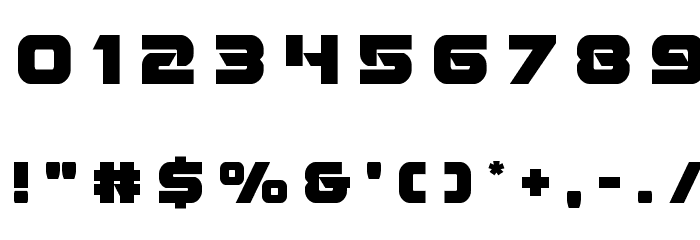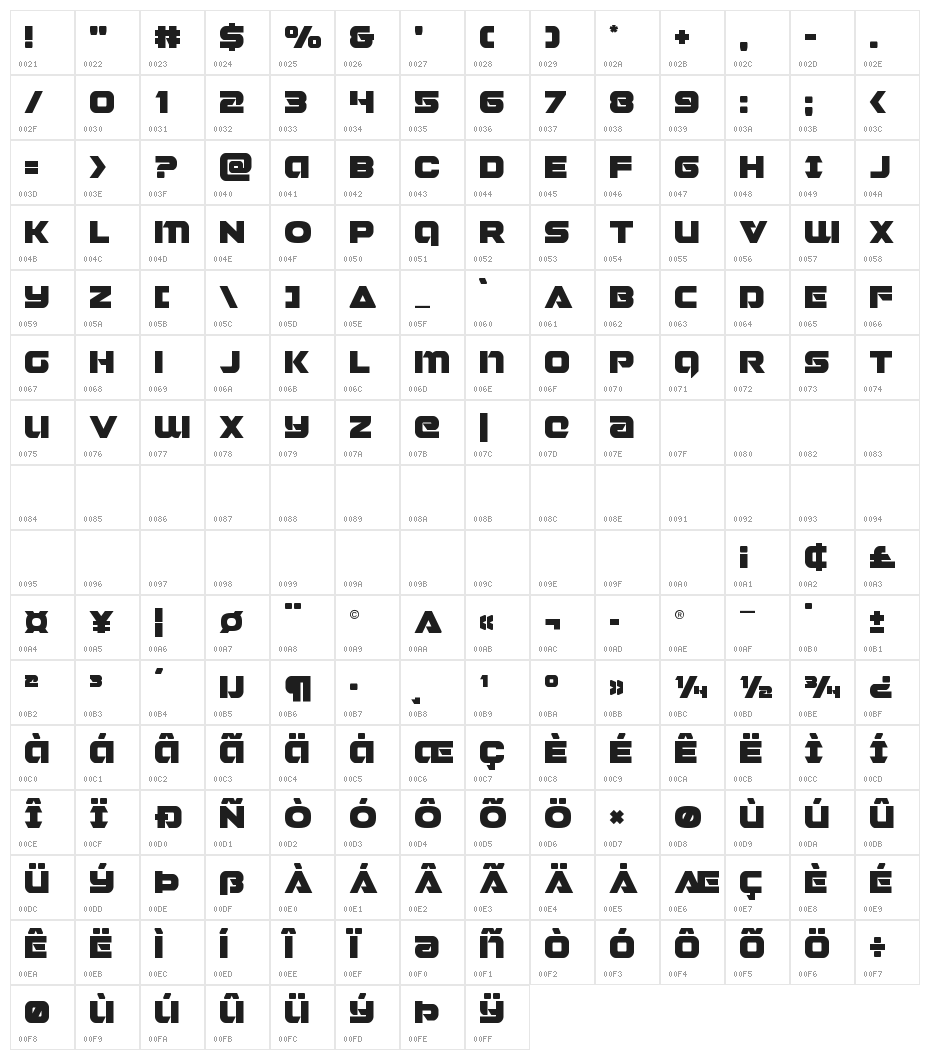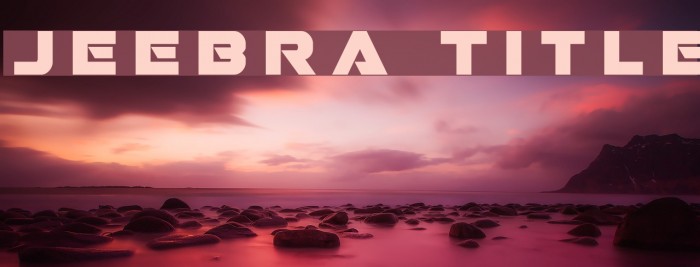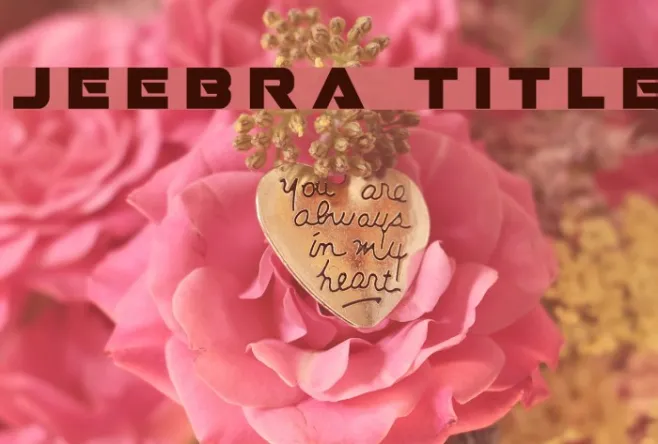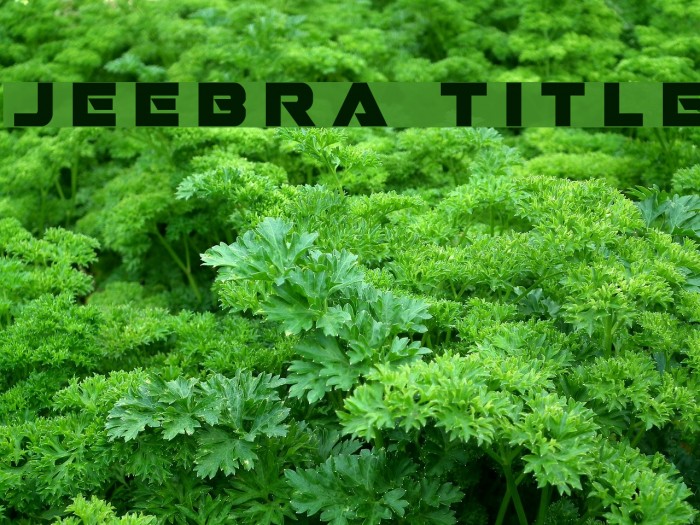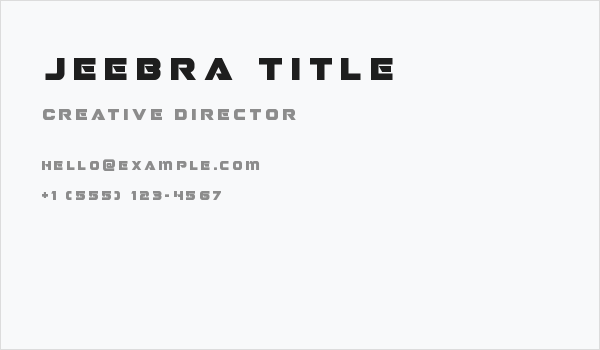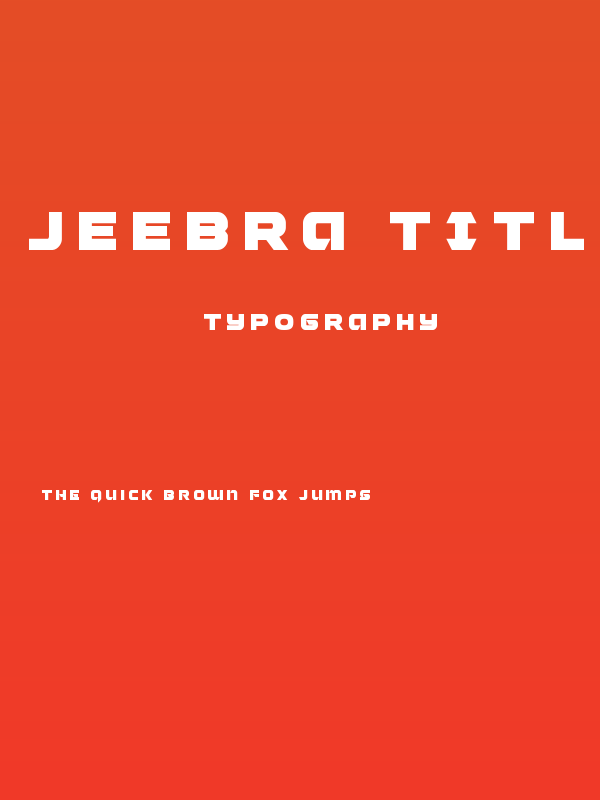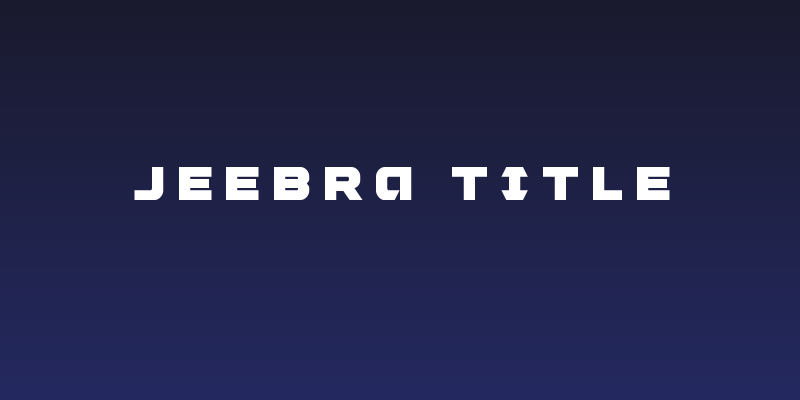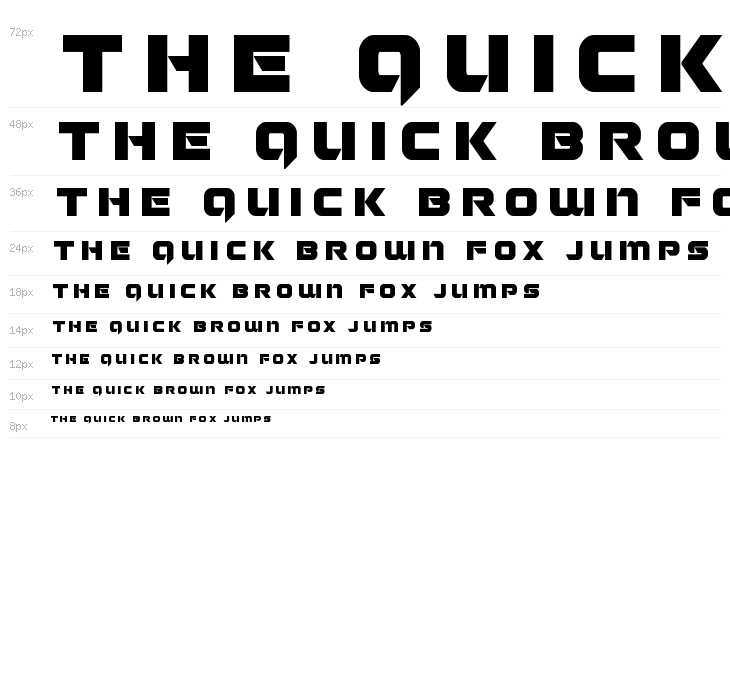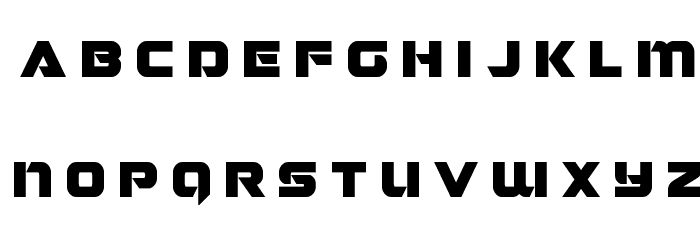
Jeebra Title Font
Jeebra Title Description
This font features a bold, geometric design with a futuristic and industrial feel. The characters are constructed with sharp angles and straight lines, giving them a distinct, edgy appearance. The uppercase and lowercase letters maintain a consistent style, with unique cutouts and shapes that add to the font's modern aesthetic. The numerals and special characters follow the same design principles, ensuring a cohesive look across all elements. This font is ideal for projects that require a strong, impactful visual presence.